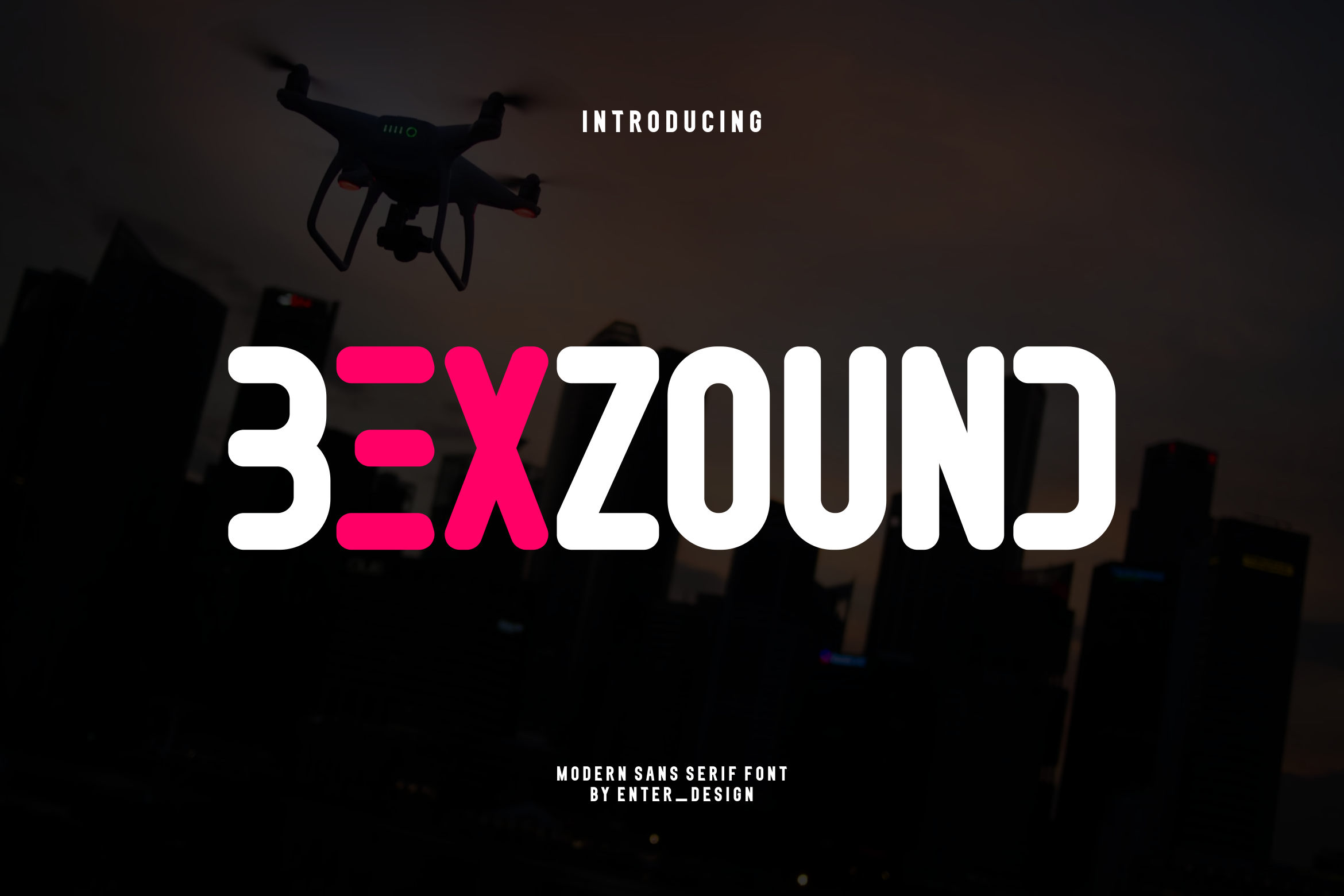
Bexzound Font
Introducing our new product Bexzound Font - Modern Font
Bexzound Font - Modern Font is a bold and authentic display font. The font is suitable for any branding project like logo, esport, and many more. outstanding in a wide range of contexts.